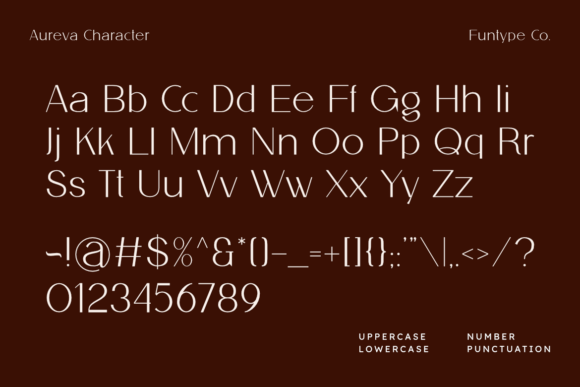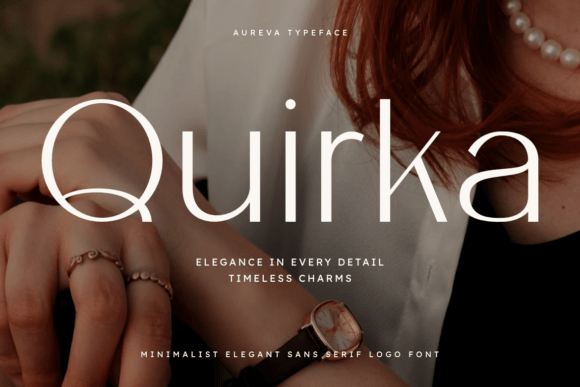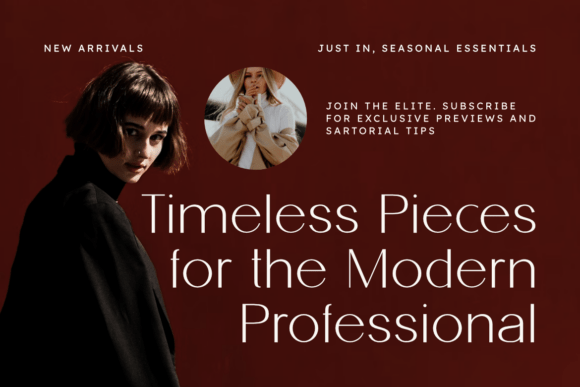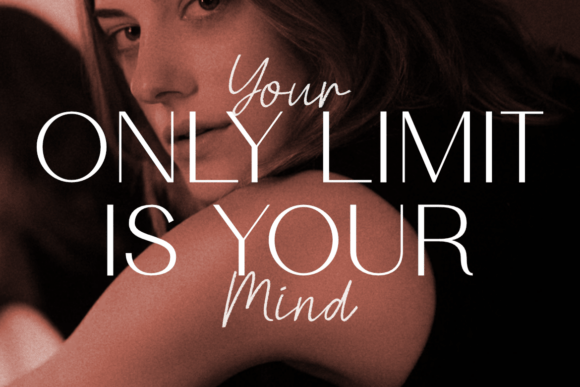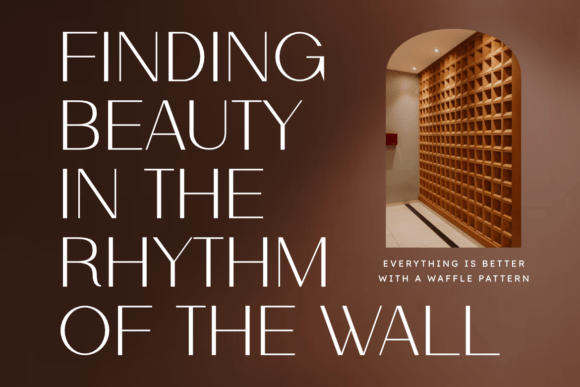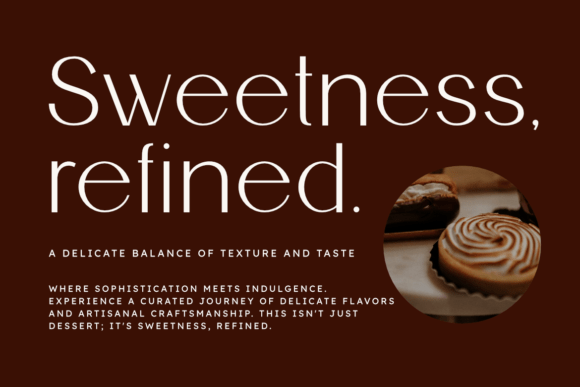
Aureva Font: Elevate Your Designs with Minimalist Elegance
In the world of typography, the right font can make all the difference in creating a lasting impression. For designers and crafters seeking to elevate their visual identity, Aureva Font is a sophisticated sans serif typeface that embodies minimalist elegance and refined proportions. With its clean lines, contemporary geometric structure, and airy letterforms, Aureva is the perfect typographic solution for high-end brand identities, sleek logos, and premium designs.
The Essence of Aureva Font
Aureva’s design is centered around the concept of “quiet luxury,” where simplicity and clarity take center stage. This sans serif typeface boasts a balanced and polished look, making it an ideal choice for designers who aim to create a sense of sophistication and refinement. Aureva’s geometric structure provides a clean and modern aesthetic, while its minimalist approach ensures that the font remains versatile and highly legible.
Key Features of Aureva Font
- Clean Lines and Minimalist Design: Aureva’s sleek lines and minimalist design make it perfect for designs where simplicity and elegance are paramount.
- Contemporary Geometric Structure: The font’s geometric structure provides a modern and airy feel, making it suitable for high-end brand identities and premium designs.
- Balanced Letterforms: Aureva’s letterforms are carefully crafted to provide a polished look that radiates sophistication and refinement.
- High Legibility: The font’s clear and simple design ensures high legibility, making it perfect for body text, headings, and titles.
Ideal Applications for Aureva Font
Aureva Font excels in various design contexts where simplicity and clarity are crucial. Some of the ideal applications for Aureva include:
- Boutique Signage: Aureva’s elegant design makes it perfect for boutique signage, adding a touch of sophistication and refinement to any storefront or brand identity.
- Fashion Editorial Layouts: The font’s clean lines and minimalist design make it an excellent choice for fashion editorial layouts, providing a polished and high-end look.
- Premium Product Packaging: Aureva’s geometric structure and balanced letterforms make it ideal for premium product packaging, elevating the overall design and visual identity of any product.
- Logo Design: Aureva’s sleek and modern design makes it perfect for creating professional logos that exude sophistication and elegance.
Why Choose Aureva Font?
With so many fonts available, why choose Aureva? Here are a few reasons why Aureva Font stands out:
- Unique and Sophisticated Design: Aureva’s design is both unique and sophisticated, providing a distinctive look that sets it apart from other fonts.
- Versatility: The font’s clean lines and minimalist design make it versatile and highly adaptable to various design contexts.
- High-End Aesthetic: Aureva’s geometric structure and balanced letterforms provide a high-end aesthetic that elevates any design.
In conclusion, Aureva Font is a sophisticated sans serif typeface that embodies minimalist elegance and refined proportions. With its clean lines, contemporary geometric structure, and airy letterforms, Aureva is the perfect typographic solution for designers aiming to create high-end brand identities, sleek logos, and premium designs. Whether you’re a designer or crafter, Aureva Font is an excellent choice for any project that requires simplicity, clarity, and sophistication.